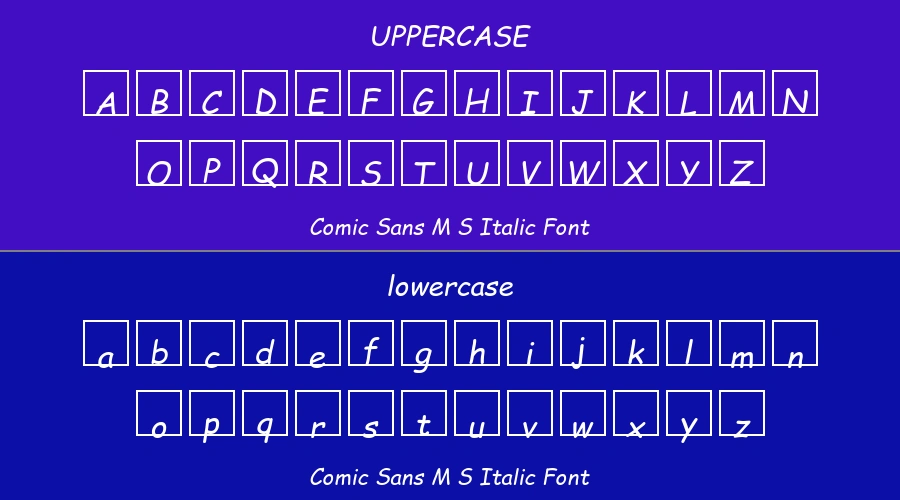
About Comic Sans M S Italic Font
Designed with precision, Comic Sans M S Italic Font merges structural clarity with precision in every character. This versatility makes it particularly effective for corporate communications, where durability and practical utility directly impact communication quality. Each letterform demonstrates meticulous craftsmanship.
Technical excellence shines through elements like angled joins and numerator/denominator, enhancing typographic versatility. In data tables settings, Comic Sans M S Italic Font proves its worth through superior detail retention. The thoughtful execution of stem weight and professional credibility ensures professional results.